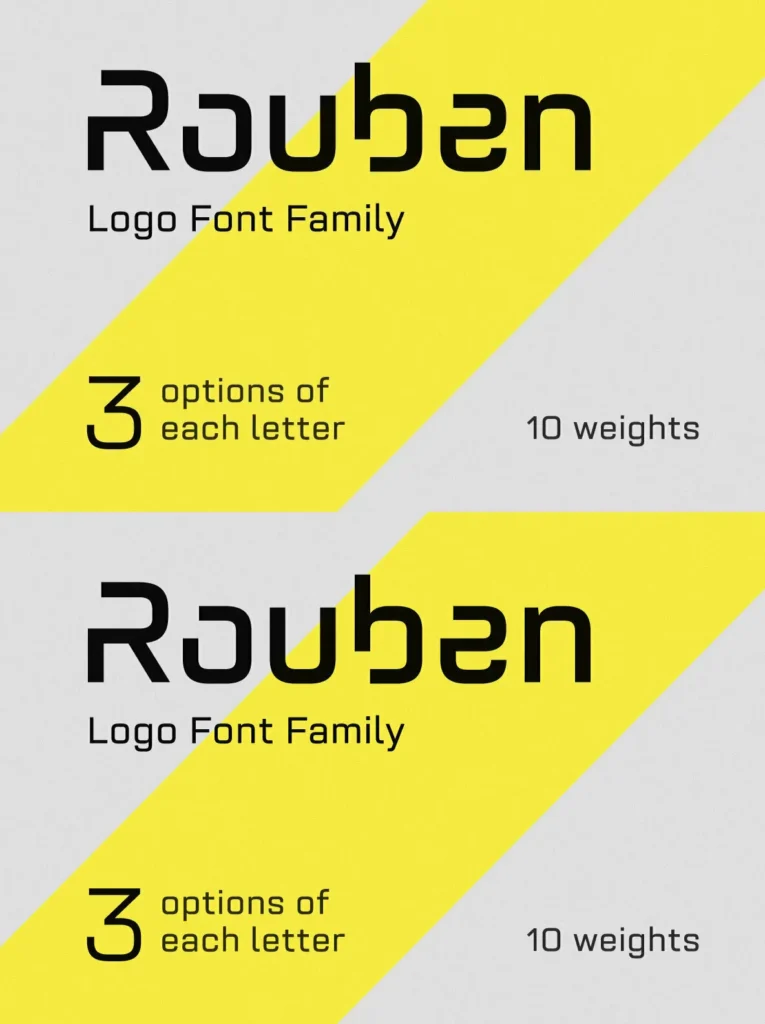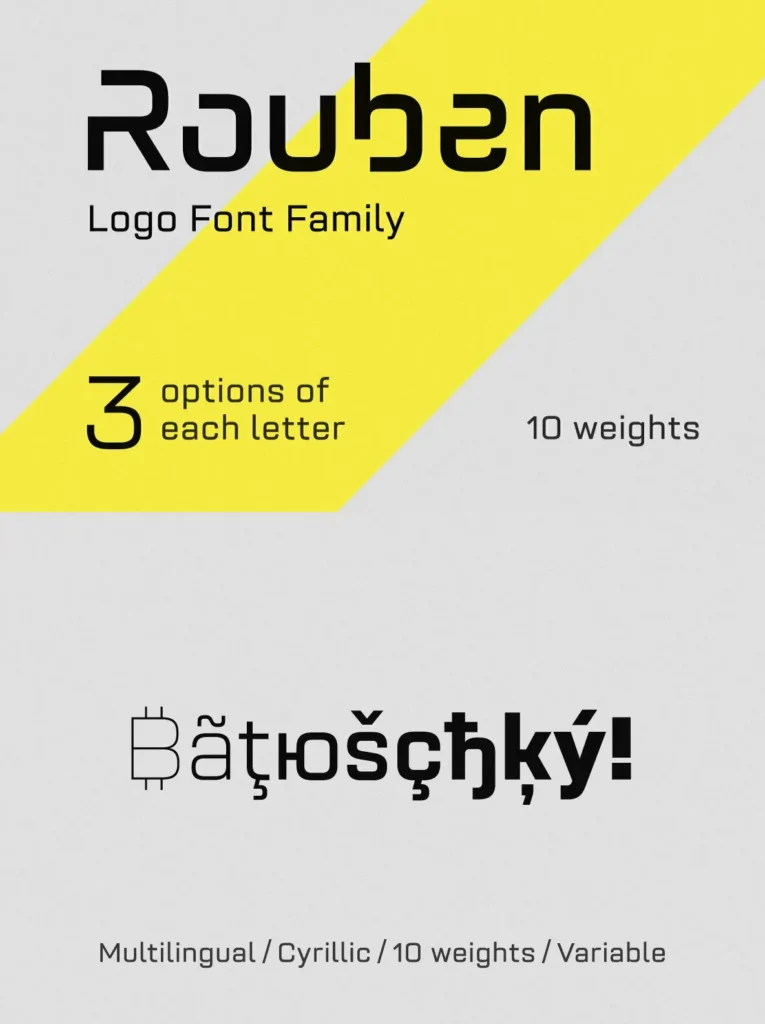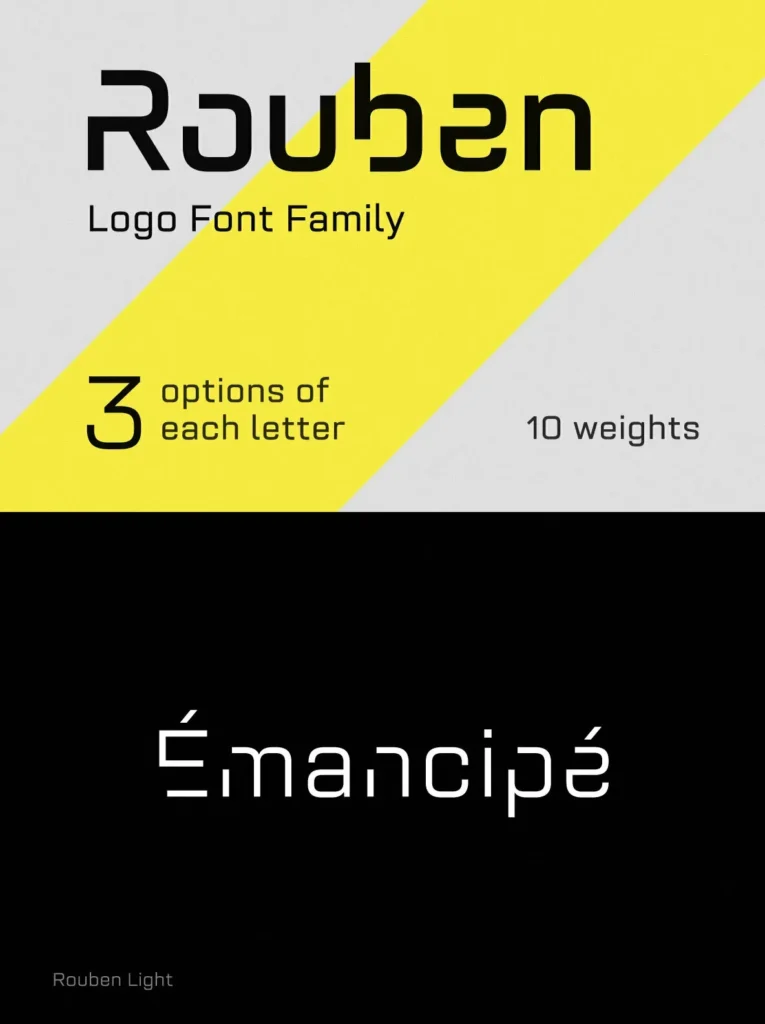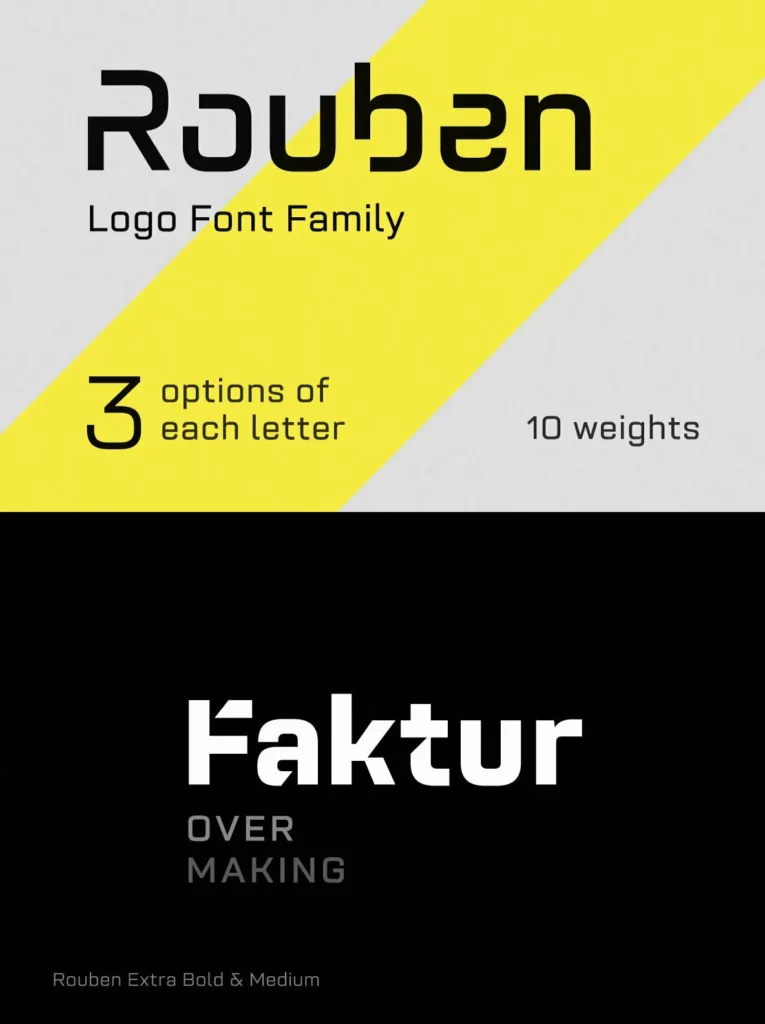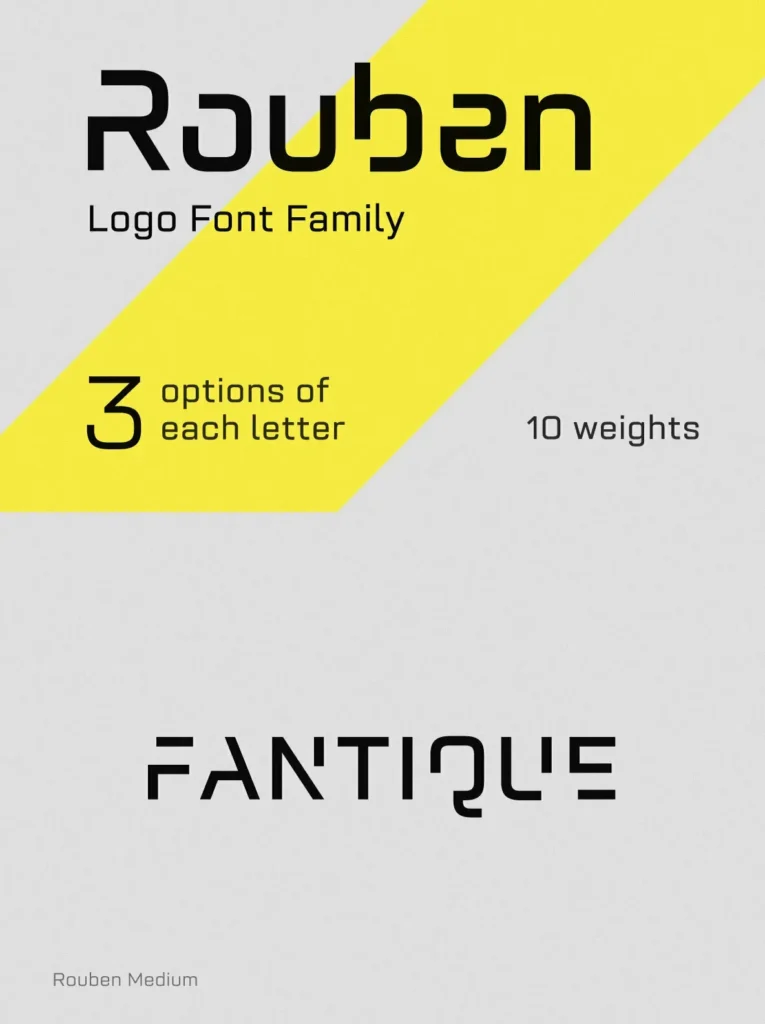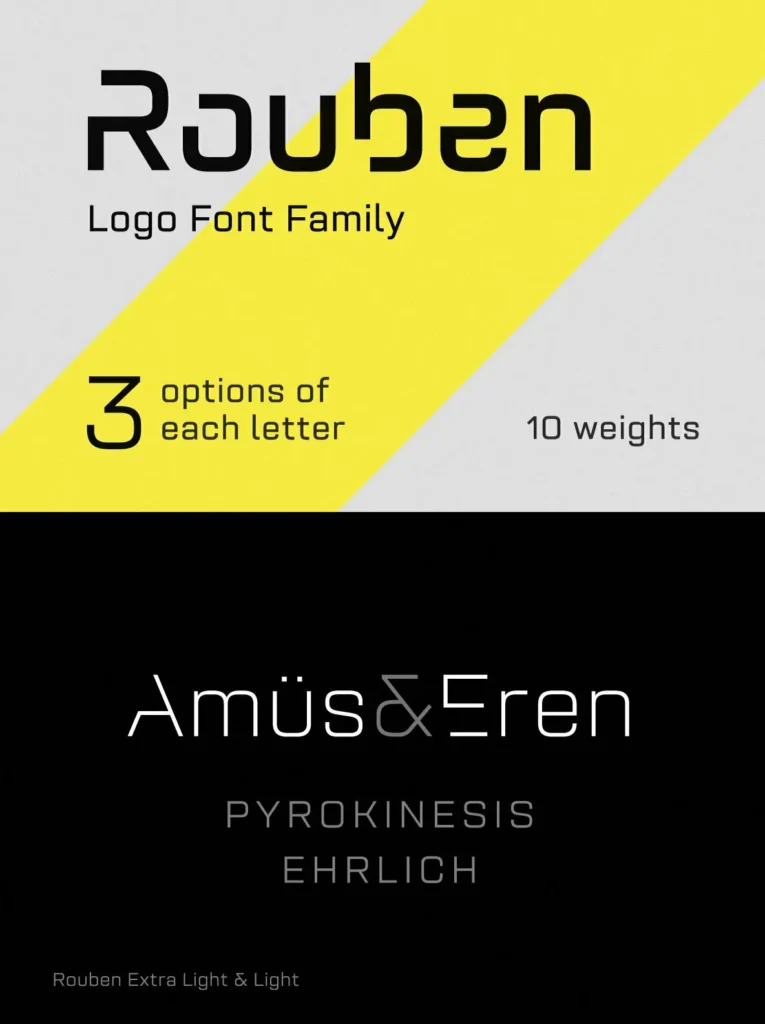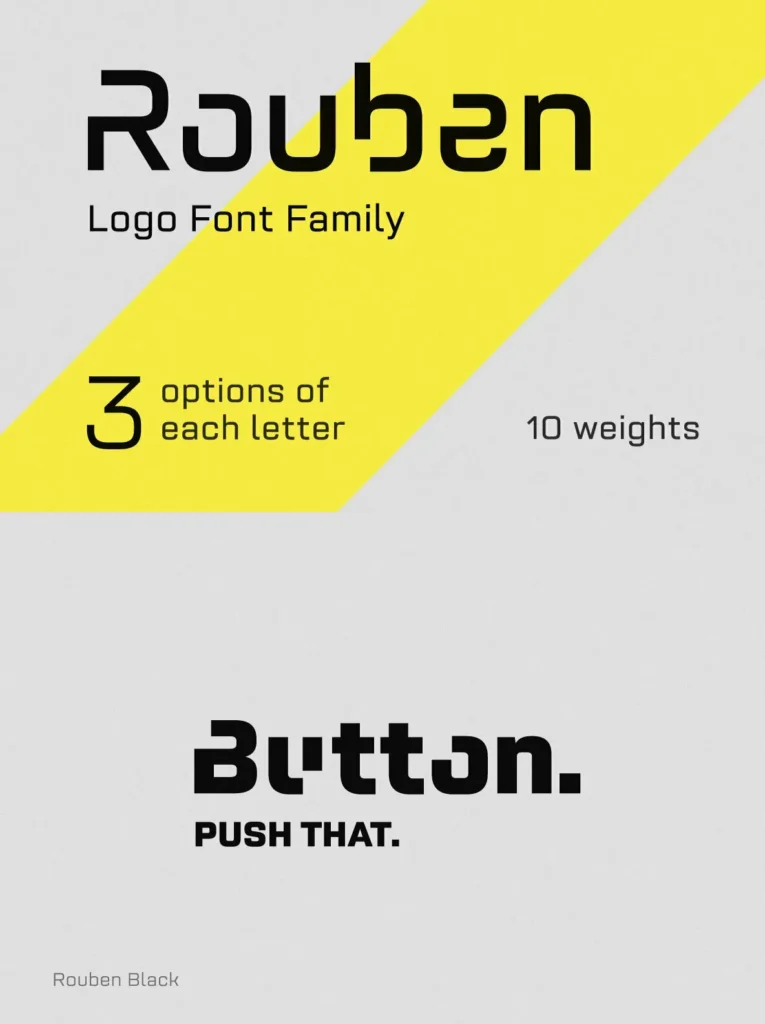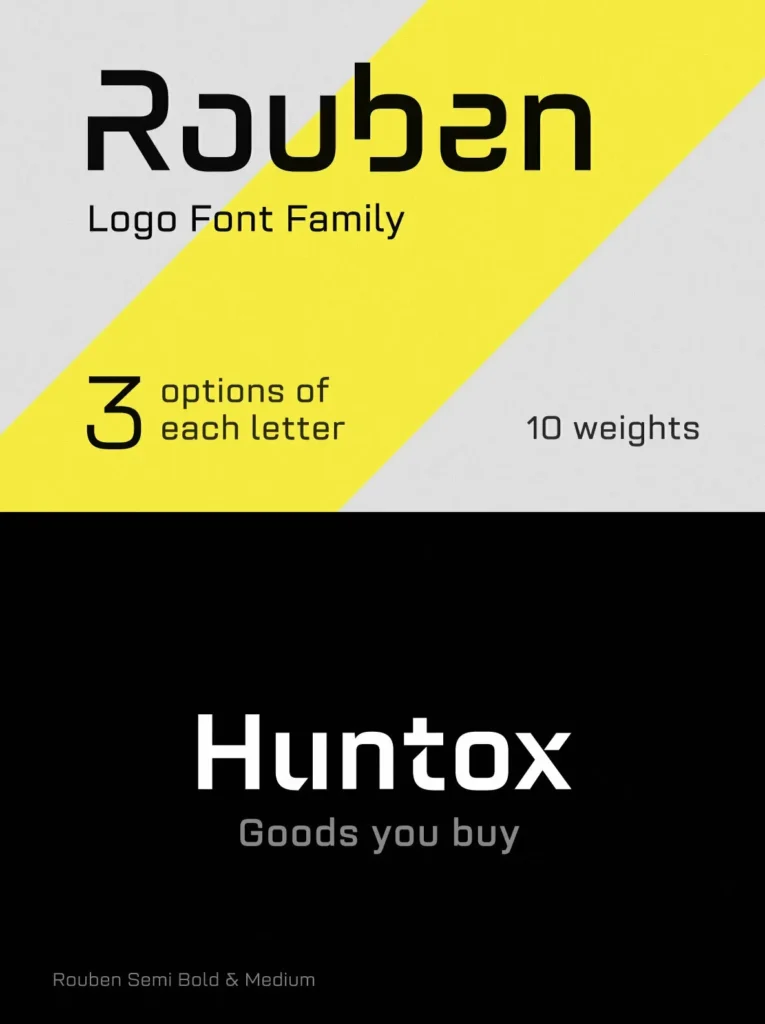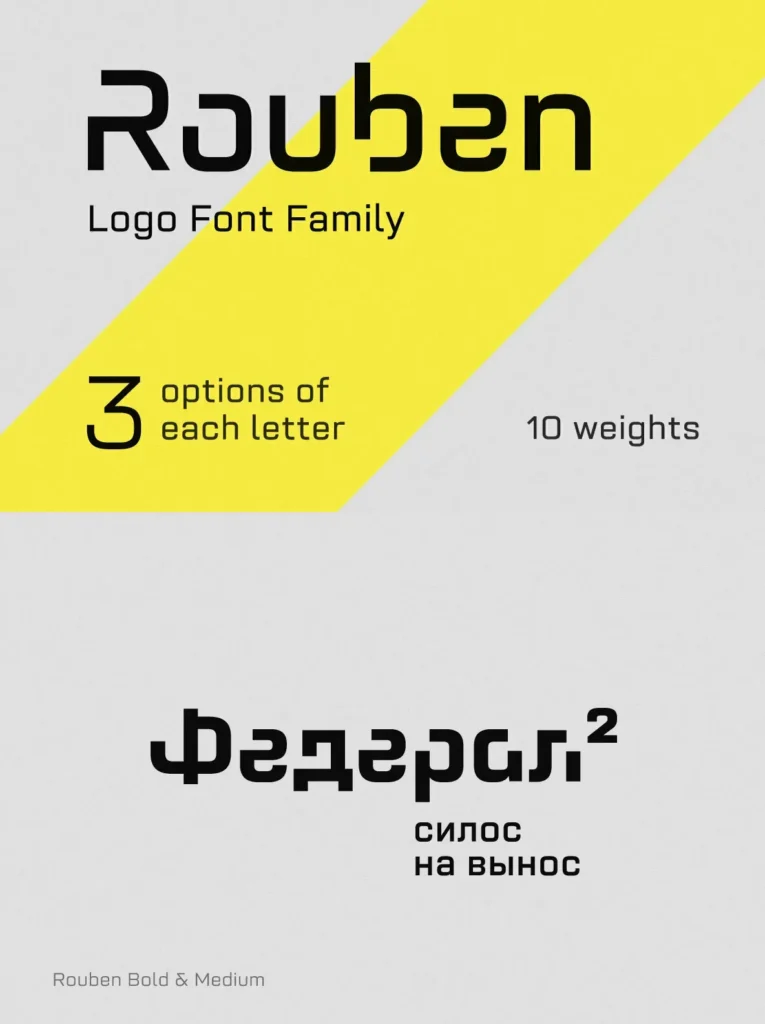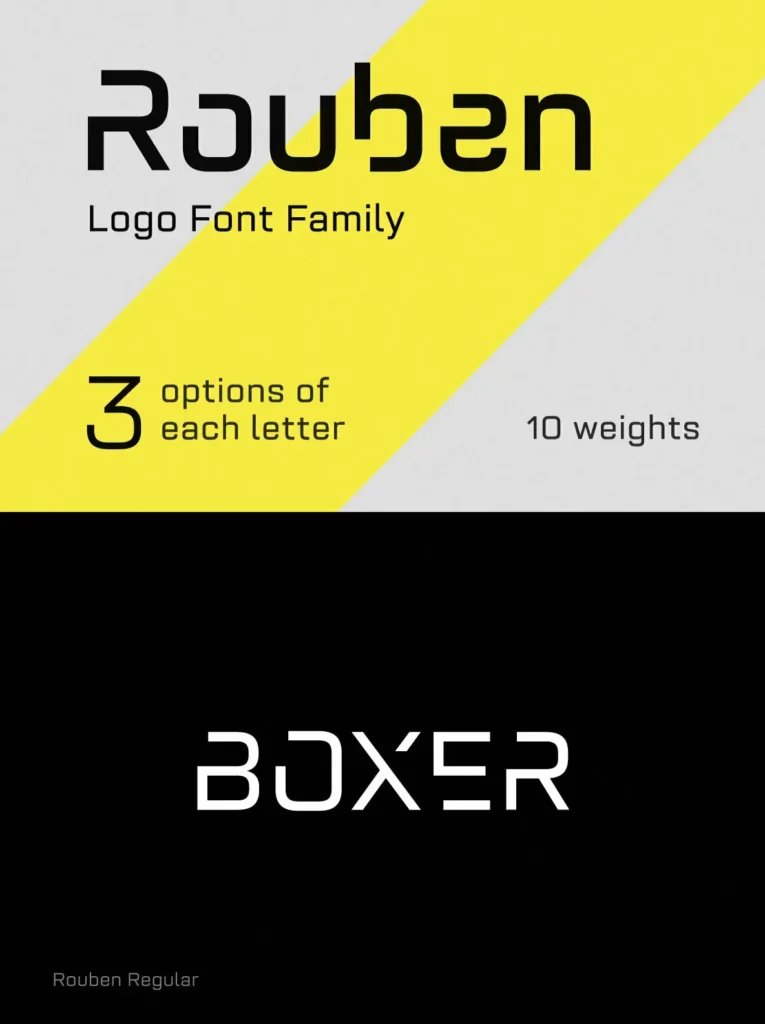
Rouben is a sans serif font family for creating minimalistic logos, wordmarks, titles, taglines.
Use stylistic alternates to emphasize separate letters in your text.
- 10 weights + variable font
- Multilanguage + Cyrillic
- 2 stylistic alternates for each letter